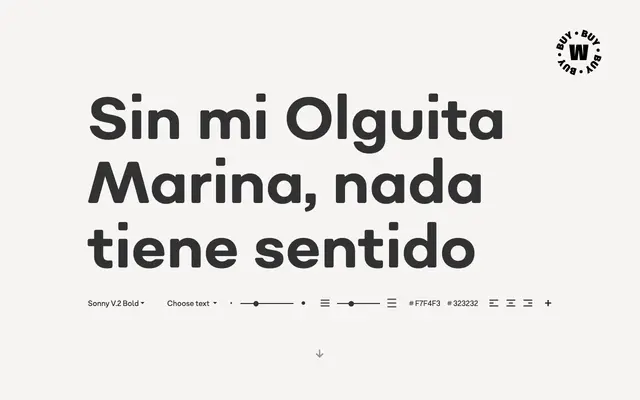
Sonny Gothic V.2
W Type Foundry · Salvador Rodriguez Gaspar Muñoz
A rounded extension of Sonny Gothic with softened corners and an expanded ligature set drawn from the spirit of Herb Lubalin's Avant Garde.
Sonny Gothic V.2 reworks its predecessor by softening all corners to produce a warmer, more approachable texture across nine weights from Thin to Ultrablack, each with an italic. The ligature system is a central feature, building on Avant Garde's approach with new combinations designed specifically to manage the white space between rounded letterforms such as FL, FB and FR. OpenType features include alternate characters, small caps, fractions, arrows and extended language support, making it well suited to advertising and graphic design contexts.
A geometric sans in the tradition of Avant Garde, with softened corners giving it a rounded, friendly character while retaining the ligature-driven rhythm of its predecessor.